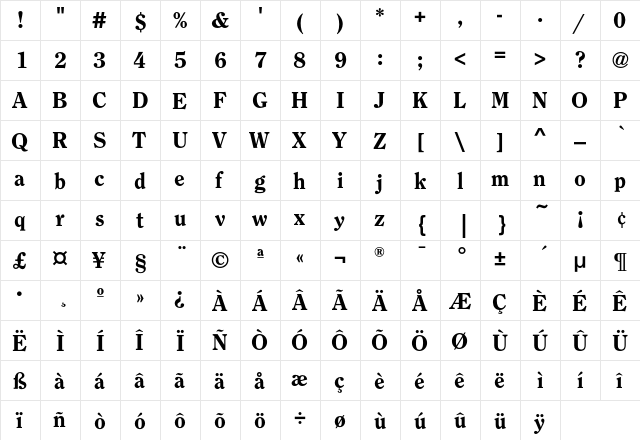
ClearfaceEF-Heavy Regular
Design Context for ClearfaceEF-Heavy Typeface
ClearfaceEF-Heavy is a composed and adaptable typeface that performs quietly and consistently across a wide range of design contexts.